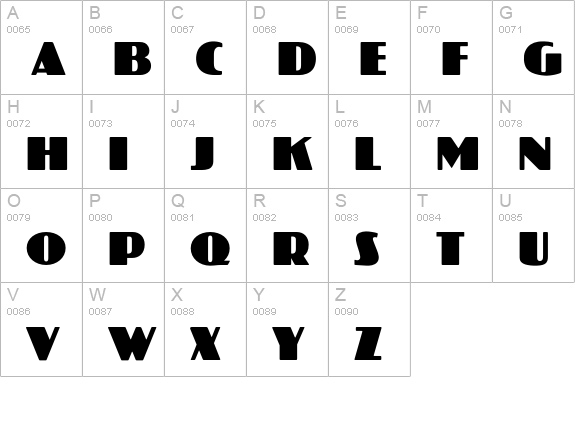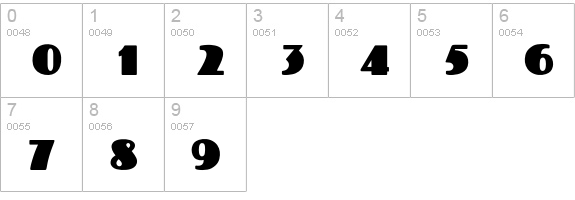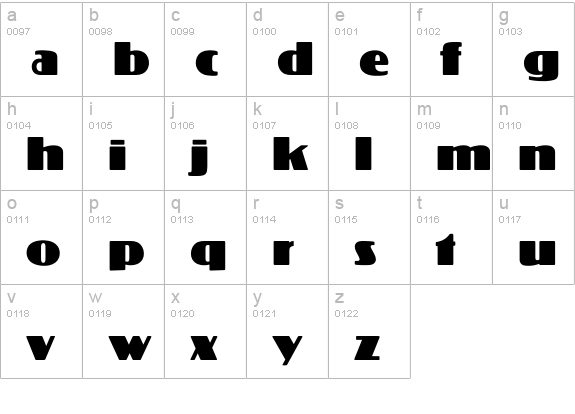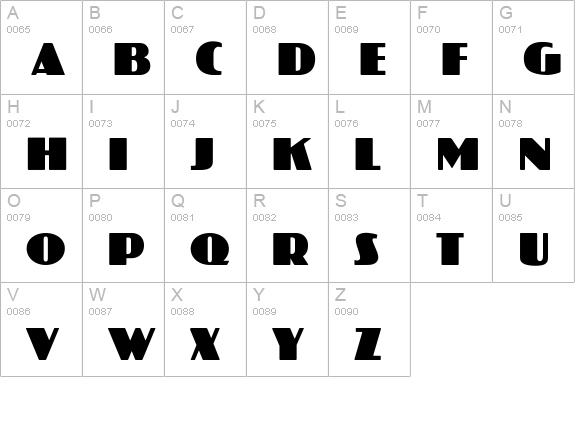
OPTIKoloss Font Details
Introducing OPTIKoloss font, a stunning typeface that exudes strength, power, and modernity. With its bold and impactful design, OPTIKoloss is perfect for making a statement in headlines, branding, posters, and more. Its sharp lines and geometric shapes give it a futuristic edge, while still maintaining a sense of elegance and sophistication. What sets OPTIKoloss font apart is that it is not only visually striking but also free to use. That's right, this versatile font is freely available to download at FontsMarket.com, allowing you to add a touch of contemporary flair to your projects without breaking the bank. Whether you're a designer looking for a fresh new font to elevate your work or a business owner aiming to stand out from the crowd, OPTIKoloss is the perfect choice. Download it today and unleash the full potential of your designs with this exceptional typeface.